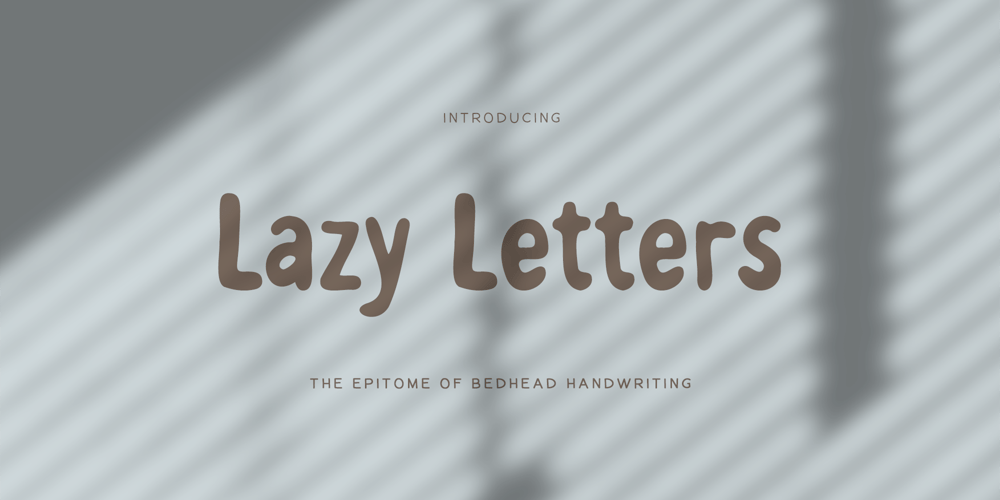
Lazy Letters Font Family was designed by Mikko Sumulong and published by Mix Fonts. Lazy Letters contains 1 styles and family package options. Introducing MIX LAZY LETTERS – the handlettered font that’s perfect for capturing that “just rolled out of bed” vibe. This font is part of the Mix Fonts collection and boasts all the features you need for a touch of hand-lettered flair.MIX LAZY LETTERS is versatile and has got you covered with multi-language support. But the real magic lies in the discretionary alternates – those uppercase and lowercase letters that are slightly askew, giving your designs a handstamped look. Use it for logos, digital journaling, or anything you want to imbue with a crafty touch.This font is ideal for graphic designers, small business owners, stay-at-home parents, crafters, and digital journalers. Get this handstamped letter font today and let the creative juices flow! MIX LAZY LETTERS comes with the following glyphs: ABCDEFGHIJKLMNOPQRSTUVWXYZ abcdefghijklmnopqrstuvwxyz 0123456789 !@#$%^&*()`~♥❤✿•· ÷×+−±≈=≠≥≤[]<>:;’”,.|/{}“”‘’-–—_ ‚„©®™‹›«»°¹²³¡¿₱¢€£¥¶§№† ÁÀÂÄȦÃÅĂĀĄÆĆĈČĊÇÐĐÉÈÊËĖĒĘḞǴĜǦḠĠĤȞḦḢIÍÌÎÏĪĮĴḰǨŁḾṀŃÑŇ ÓÒÔÖÕŌŐØŒṔṖŔŘṘŚŜŠŞȘŤṪȚÚÙÛÜŨŮŬŪŰŲẂẀŴẄẆÝŶŸŹẐŽŻƵ áàâäȧãåăāąæćĉčċçðđéèêëėēęḟǵĝǧḡġĥȟḧḣıíìîïīįĵḱǩłḿṁńñň óòôöõōőøœṕṗŕřṙśŝšşșťṫțúùûüũůŭūűųẃẁŵẅẇýŷÿźẑžżƶ